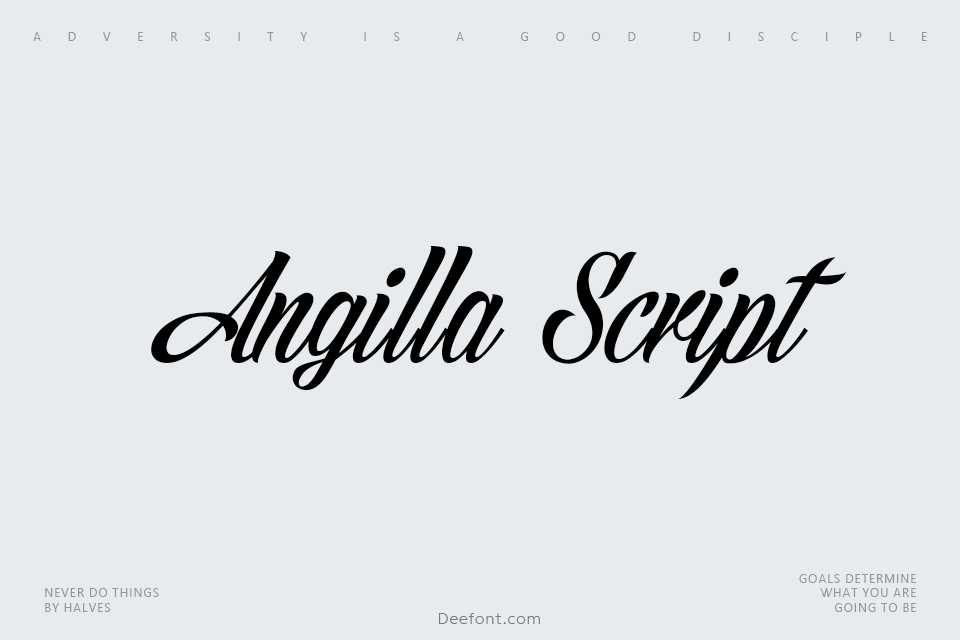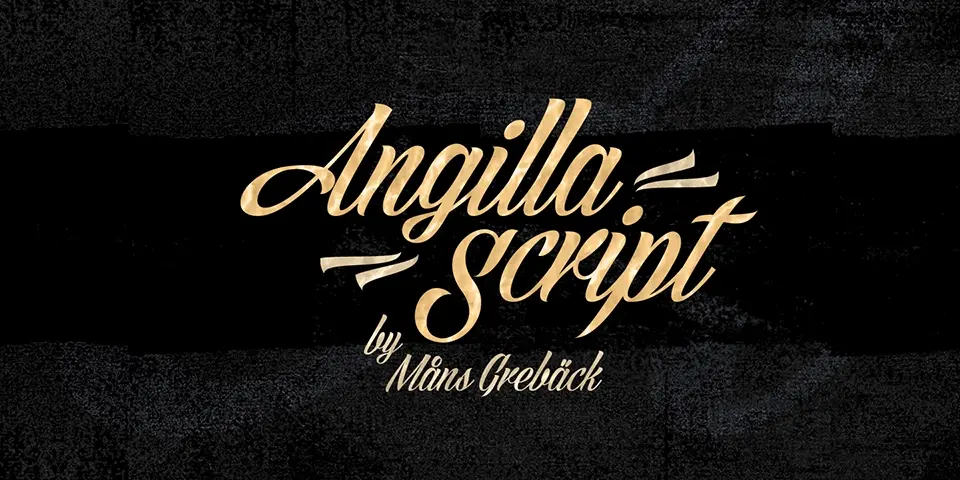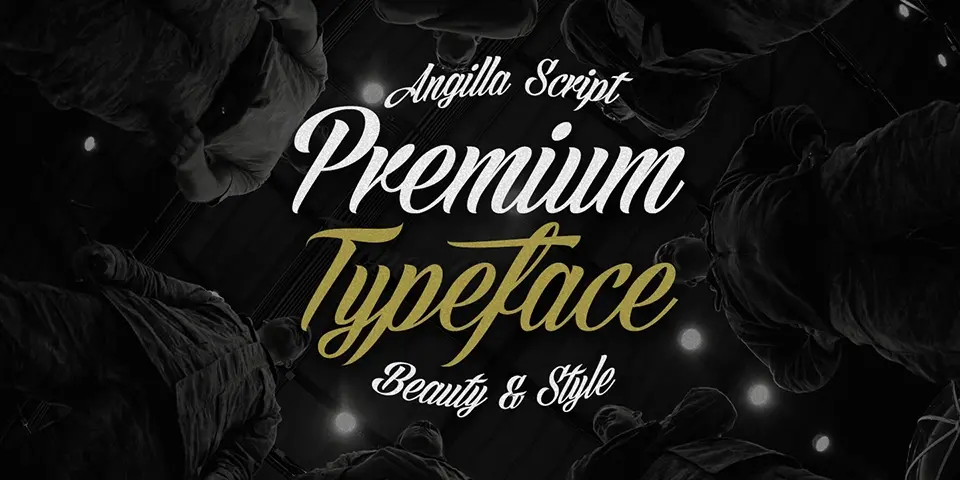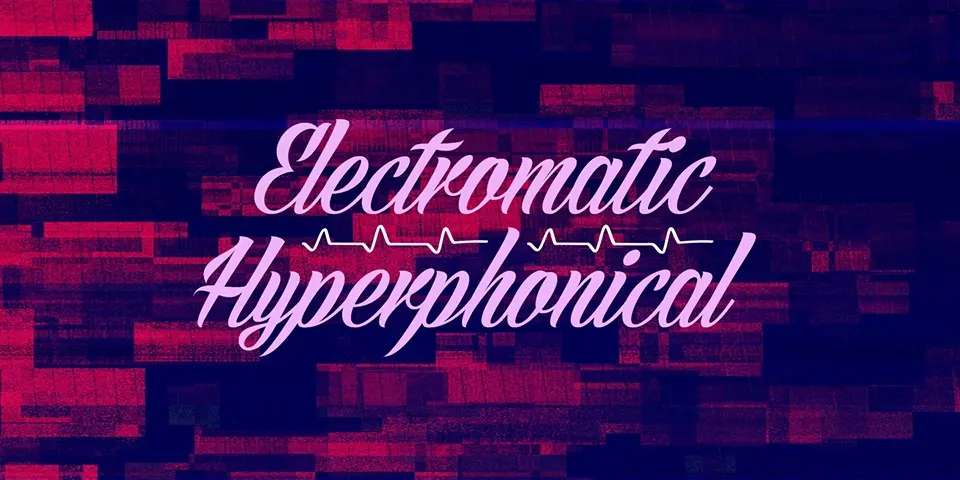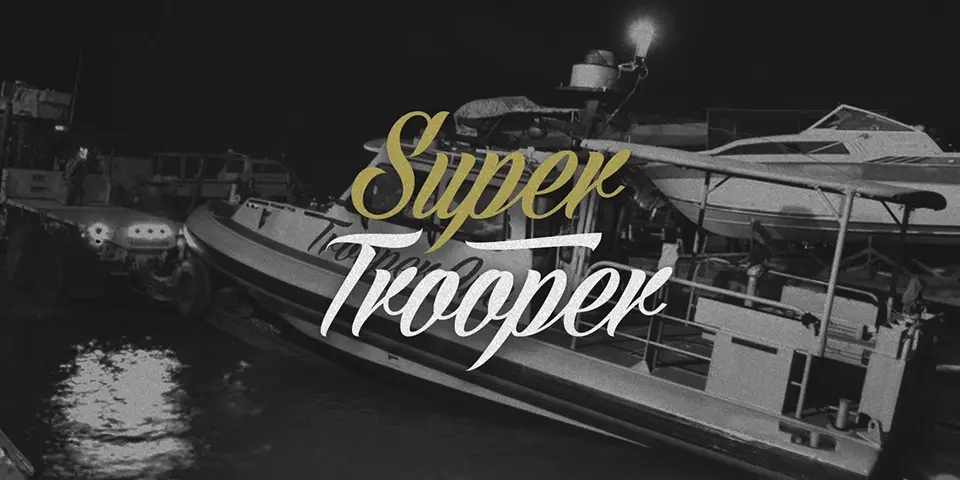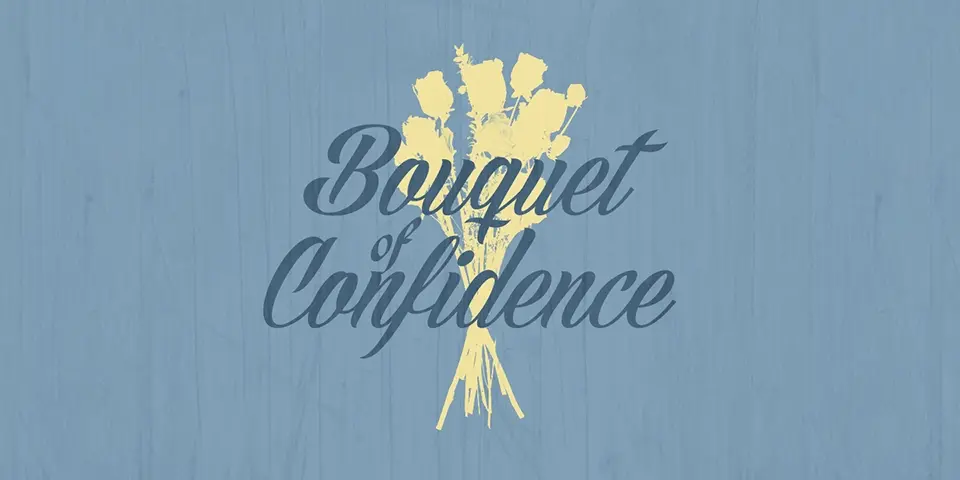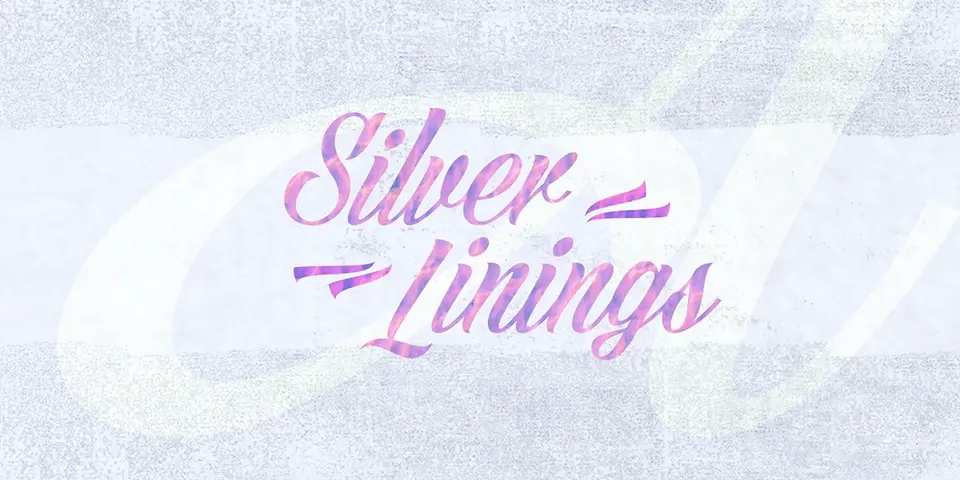
Angilla Script Font
Angilla Script is a tattoo-inspired calligraphy typeface created by Måns Grebäck between 2019 and 2020. While maintaining a feminine flow, this font exudes confidence, attitude, and daring personality. It features extensive lingual support covering European and Asian Latin scripts with all necessary characters including punctuation and numbers. Perfect for concert posters, logo designs, or adding distinctive personality to any creative project, Angilla Script combines elegant curves with bold expression, making it ideal for branding and custom designs requiring a striking visual impact.